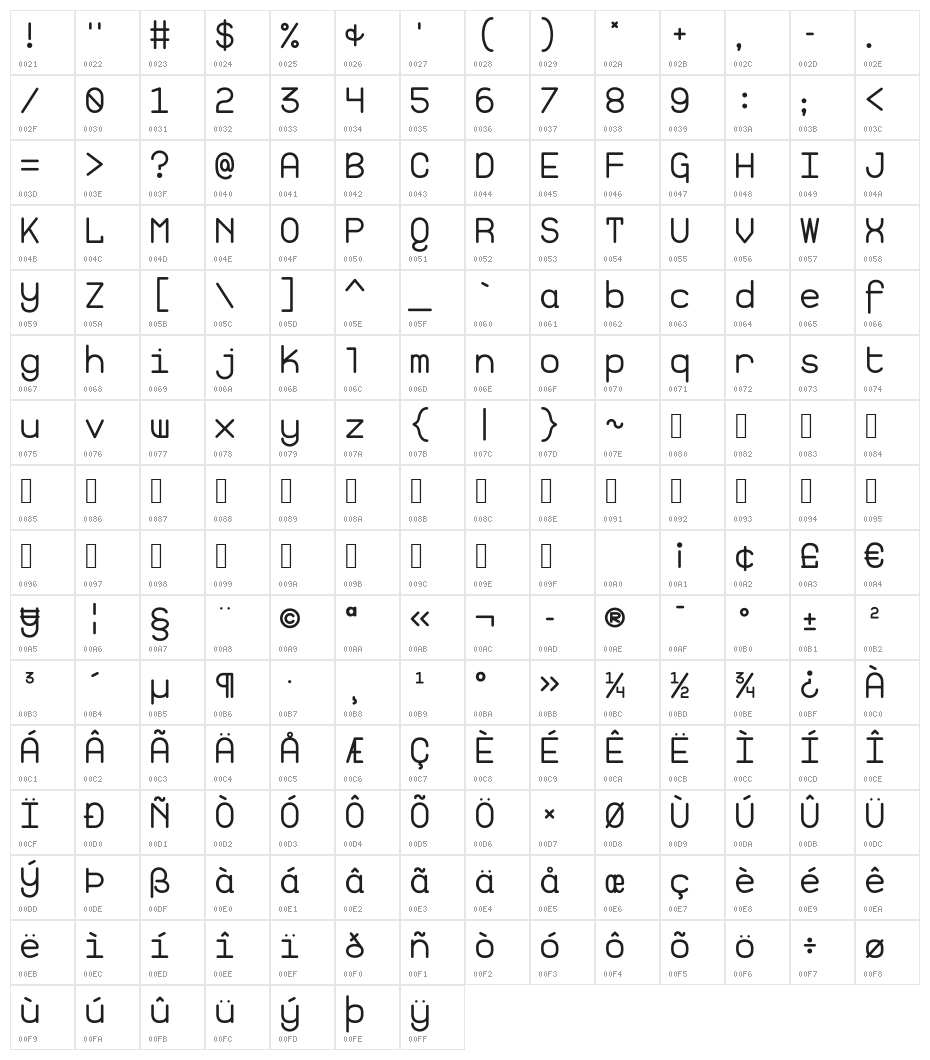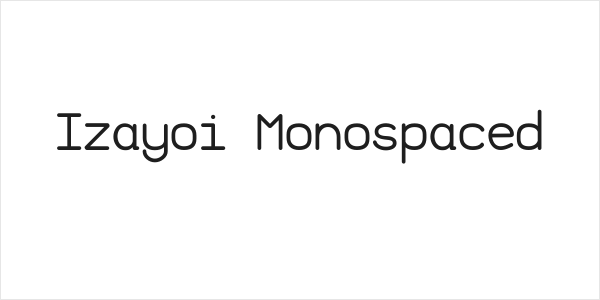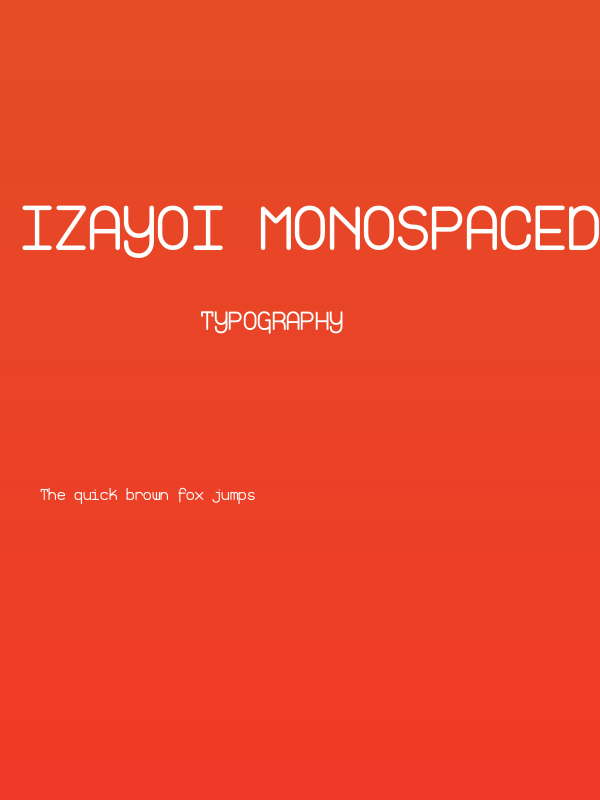
Izayoi Monospaced Font
Izayoi Monospaced Description
This font features a clean and modern monospaced design, characterized by its uniform spacing and rounded edges. Each character is crafted with precision, maintaining equal width, which is ideal for coding and technical documentation. The rounded terminals and consistent stroke width give it a friendly and approachable appearance, while still retaining the clarity and legibility expected from a monospaced typeface. The numerals and special characters are distinct and easily distinguishable, enhancing readability. This font balances functionality with a touch of style, making it versatile for various applications.
| Use Case | Coding, Technical documentation |
| Proposed Projects | Ideal for coding, technical documentation, and any project requiring a clean, uniform typeface. |